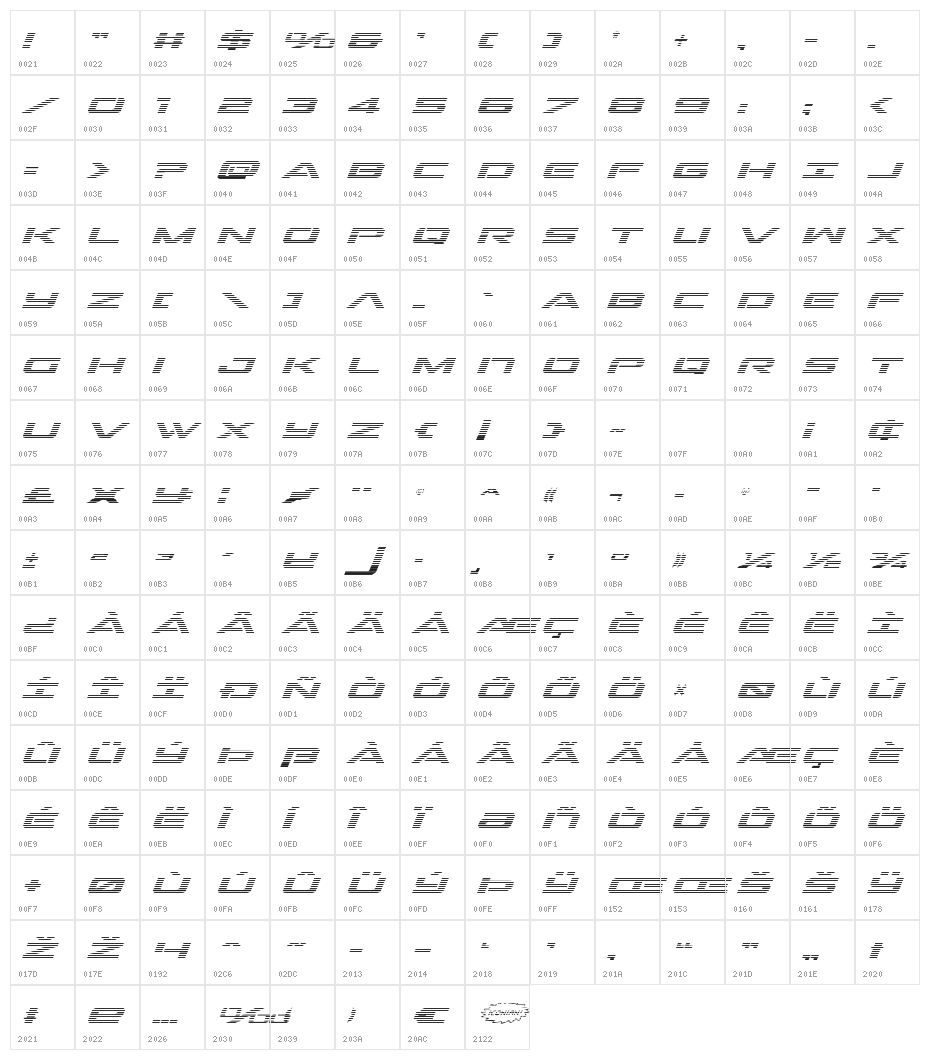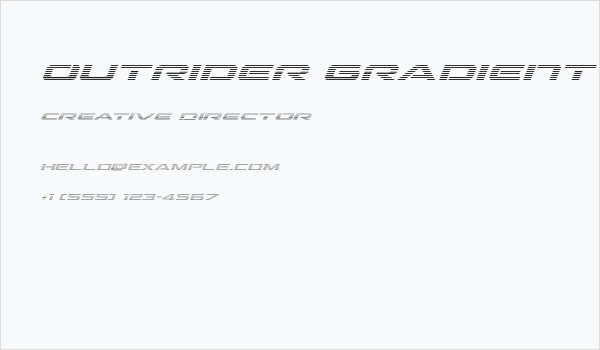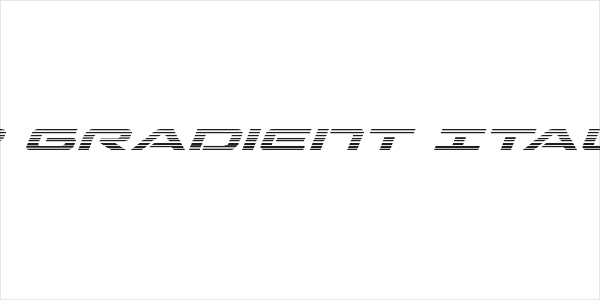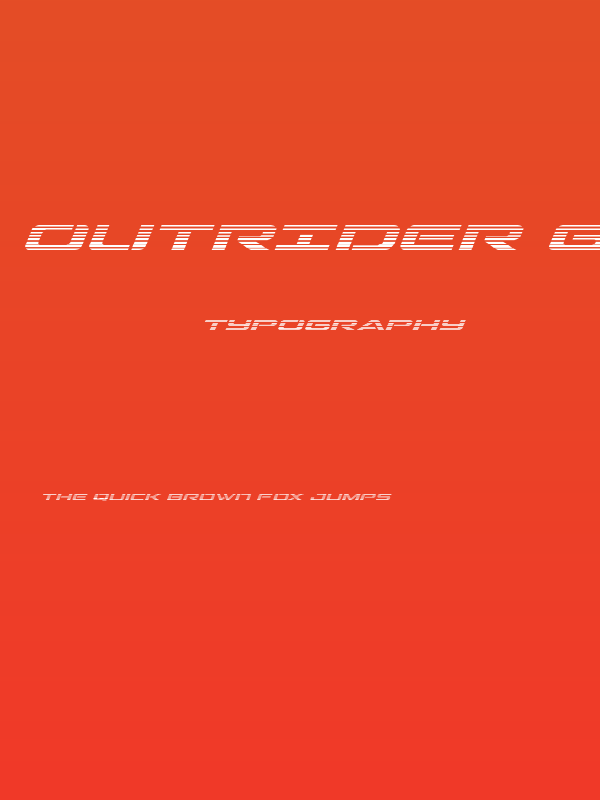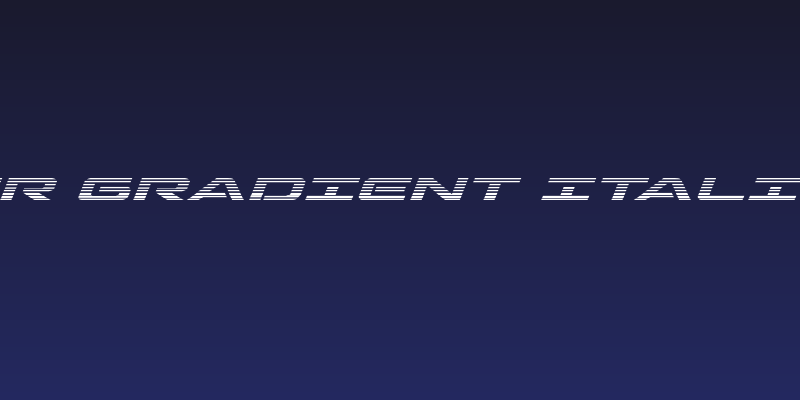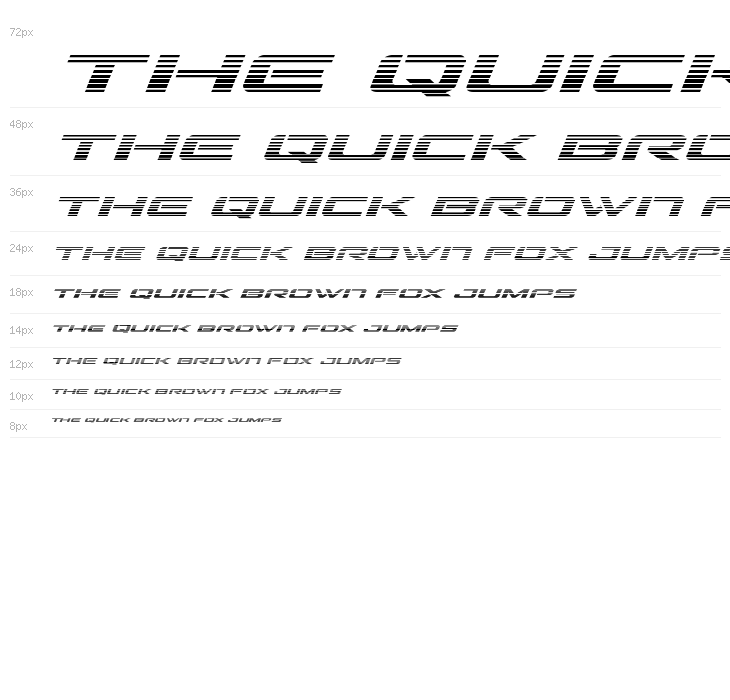
Outrider Gradient Italic Italic Font
Outrider Gradient Italic Italic Description
This font features a dynamic, futuristic design with a distinct italic slant, giving it a sense of motion and speed. The characters are composed of multiple horizontal lines, creating a gradient effect that enhances its modern and edgy appearance. The uppercase and lowercase letters maintain a consistent style, with sharp angles and clean lines. The numerals and special characters follow the same design principles, ensuring uniformity across all glyphs. This font is ideal for projects that require a bold and contemporary look, such as technology branding, sports team logos, or sci-fi themed designs.
| Proposed Projects | Ideal for technology branding, sports logos, sci-fi themes, and dynamic advertising. |